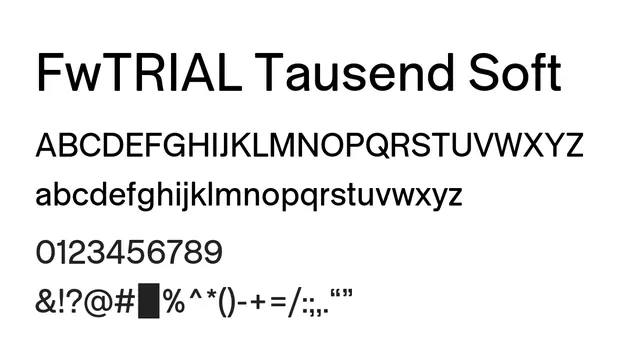
FwTRIAL Tausend Soft
FwTRIAL Tausend Soft, modern, friendly
A versatile geometric sans-serif balancing soft, rounded character edges with confident, modern proportions across a full weight range.
Excellent choice for tech and lifestyle brands needing approachable modernity. The extended weight range supports both headlines and substantial text blocks. The soft roundness creates visual warmth while geometric structure maintains clarity at all sizes.
Pairs naturally with minimalist serifs like Barlow, or use lighter weights for accessible body text paired with a warm humanist serif for editorial work.